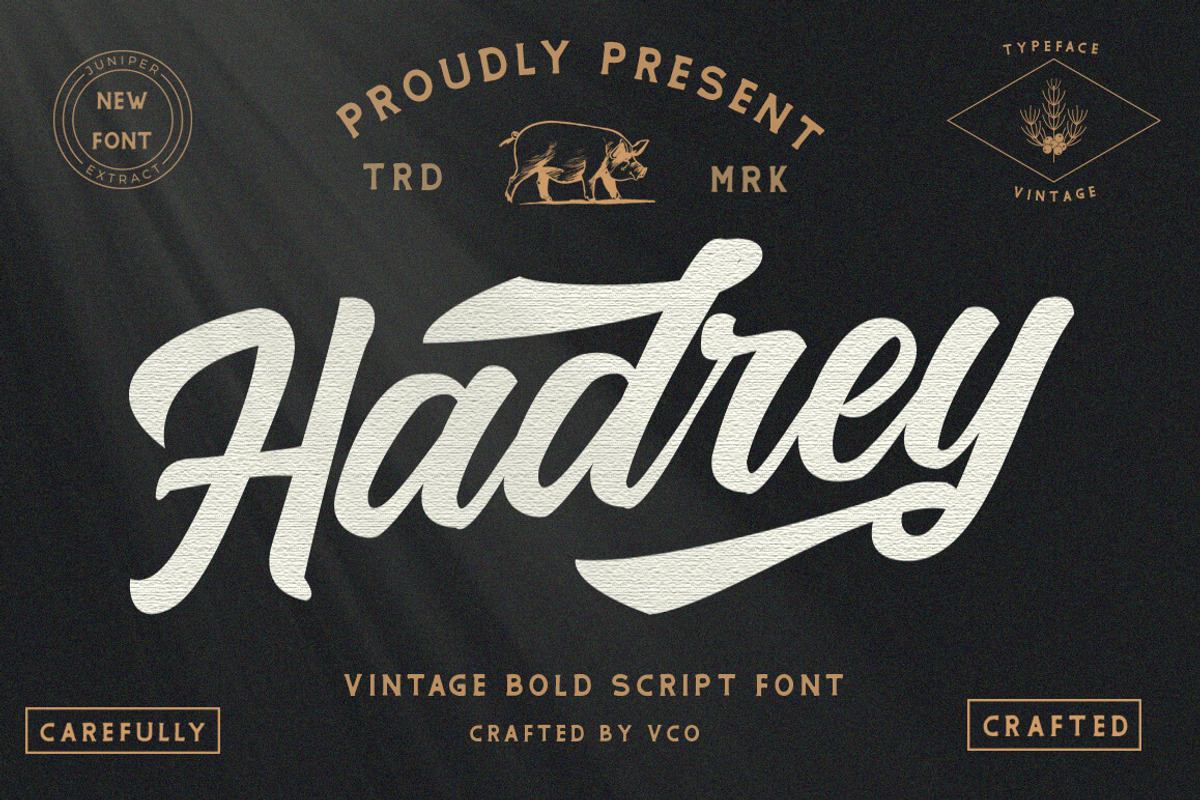
Hadrey - Vintage Bold Script Free Download
Hadrey – Vintage Bold Script Font Free Download
Bold, retro, and full of swagger, Hadrey – Vintage Bold Script Font Free Download is a dynamic typeface that brings a nostalgic punch to your design work. Inspired by vintage signage and classic script styles, Hadrey is perfect for logos, t-shirts, posters, packaging, and branding that needs a strong yet stylish statement.
Its flowing curves, thick strokes, and retro flair make it a standout for projects aiming for an old-school look with modern polish. Whether you're crafting a throwback brand or adding a bold headline, Hadrey delivers personality and impact.